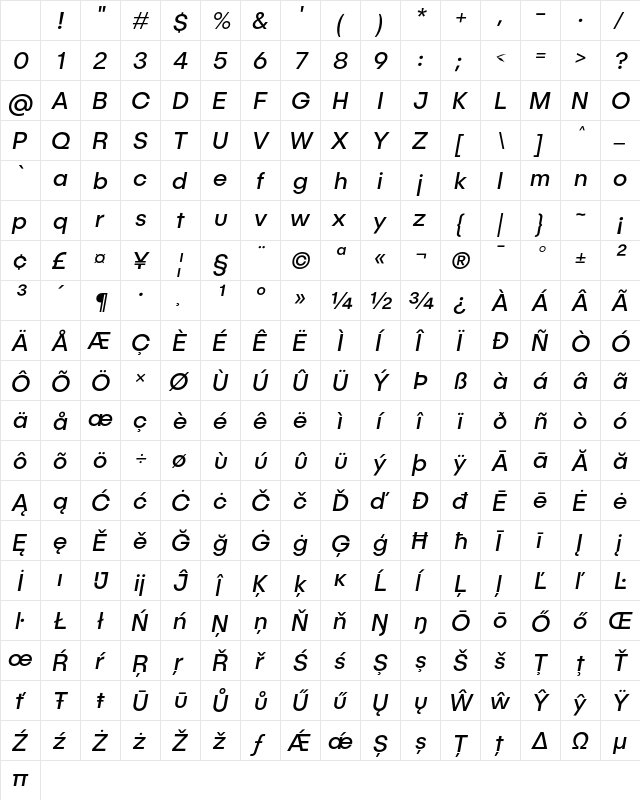
Publica Sans is a composed and adaptable typeface that performs quietly and consistently across a wide range of design contexts. The slanted form adds forward momentum and visual energy.